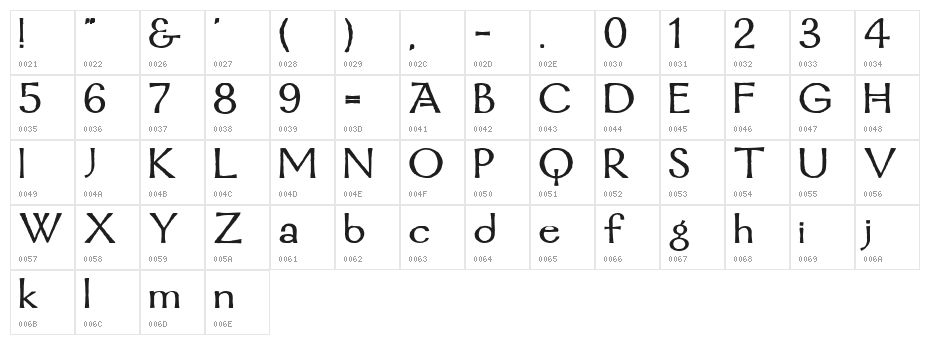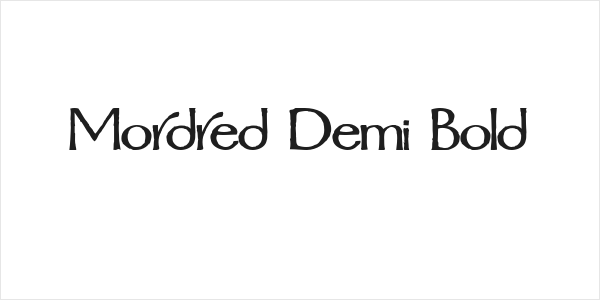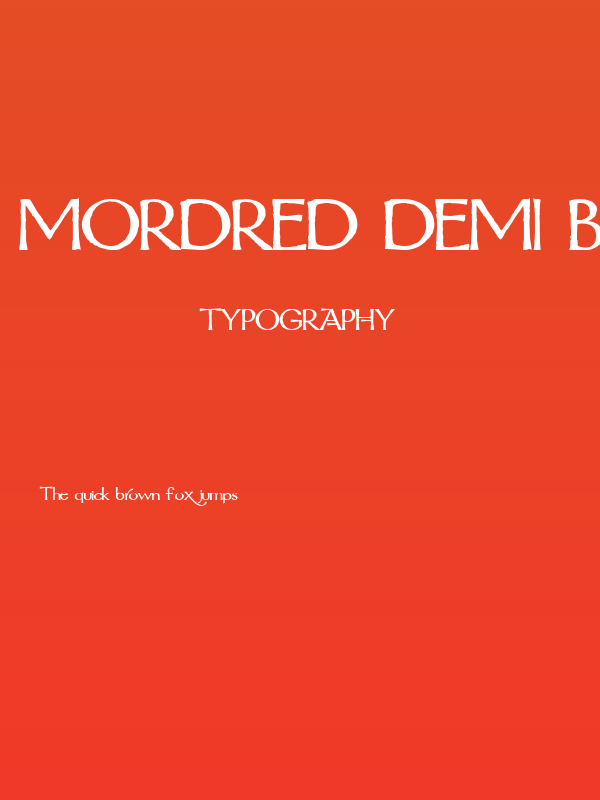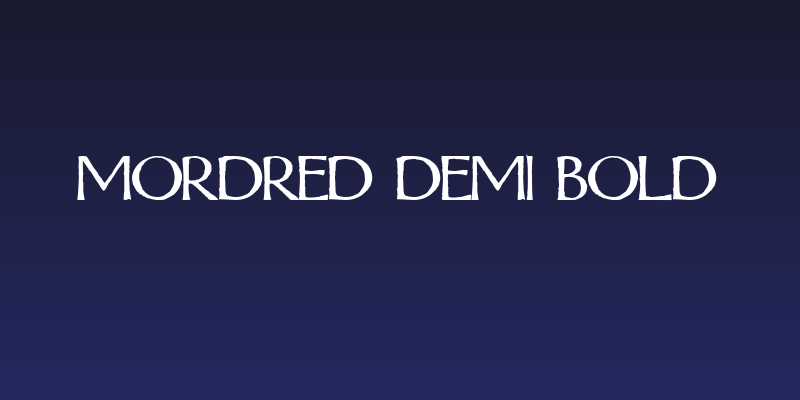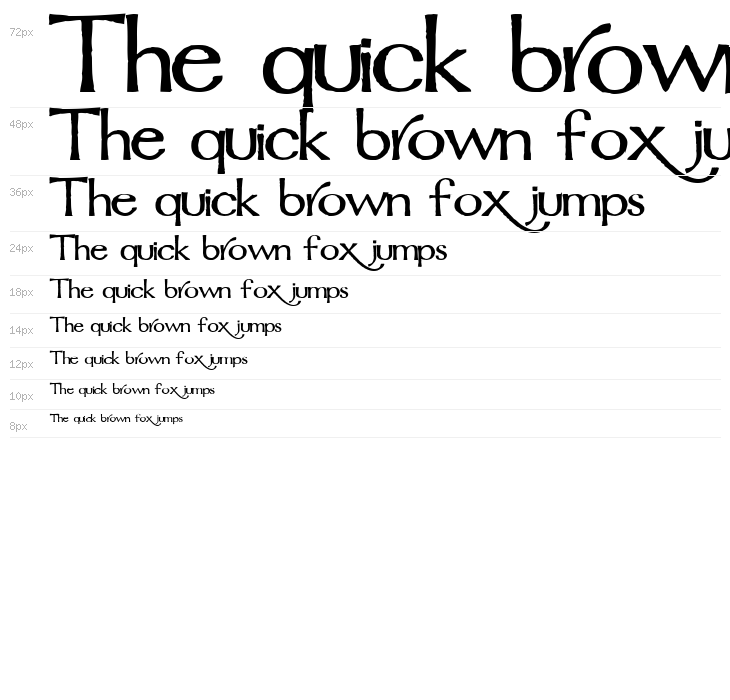
Mordred Demi Bold Font
Mordred Demi Bold Description
This font features a bold and striking design with a medieval flair, characterized by its sharp edges and unique serifs. The uppercase letters exhibit a strong presence with angular lines and a slightly condensed form, while the lowercase letters maintain a consistent style with a touch of elegance. The numerals are bold and easily readable, complementing the overall aesthetic. Special characters are designed with the same attention to detail, ensuring a cohesive look across all glyphs. This font is ideal for projects that require a dramatic and historical touch, offering a distinctive appearance that stands out.
Overall StyleMedieval, Dramatic
Proposed ProjectsIdeal for fantasy book covers, historical event posters, and themed branding.